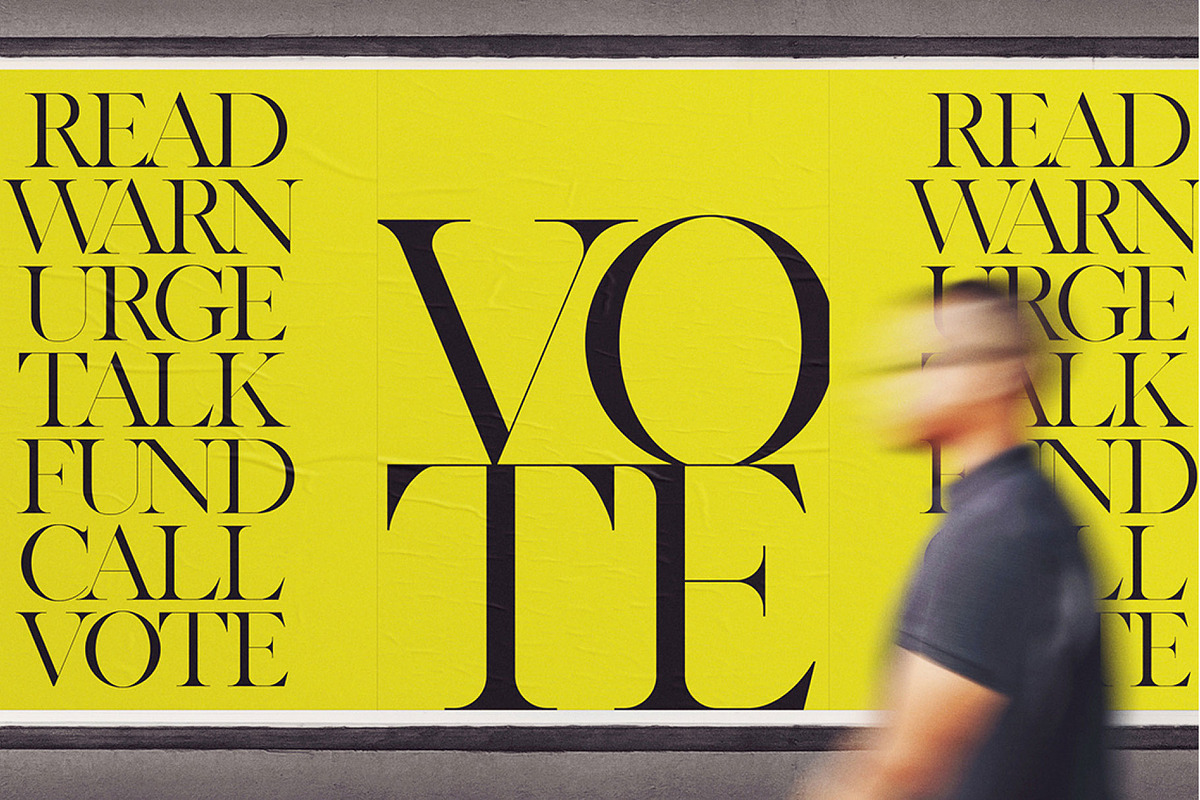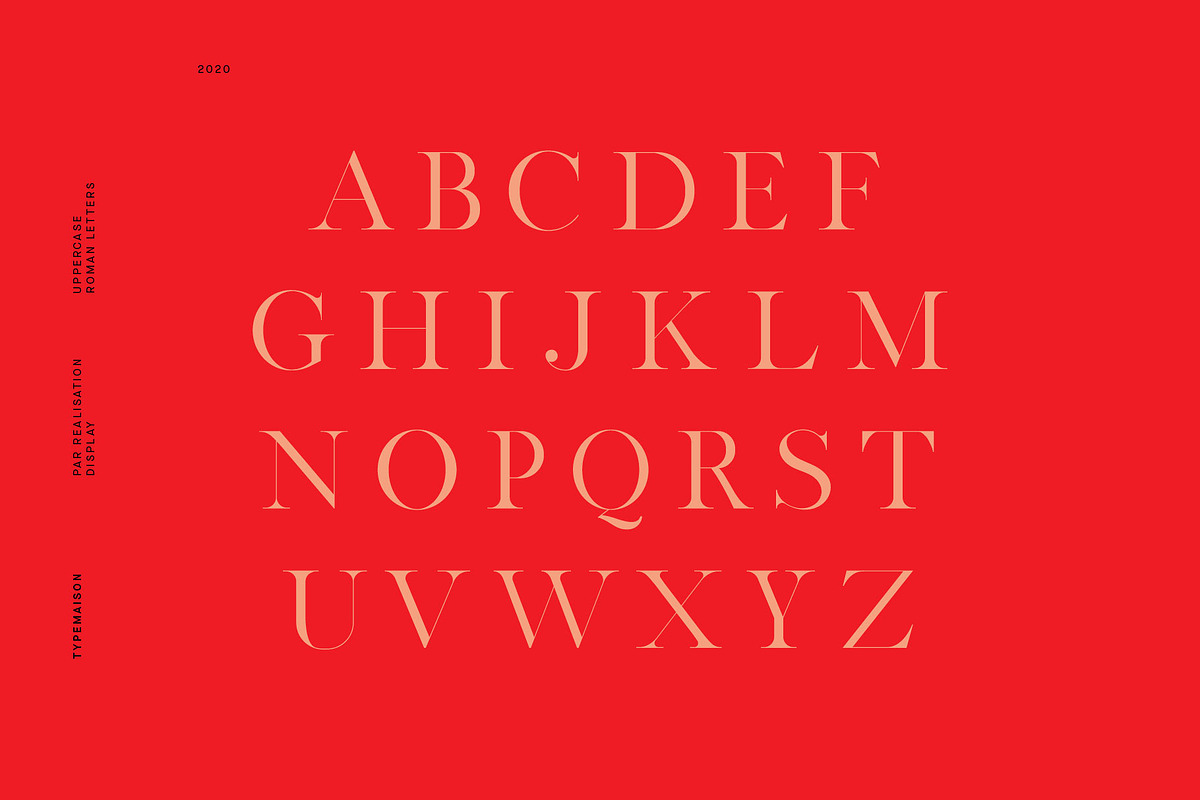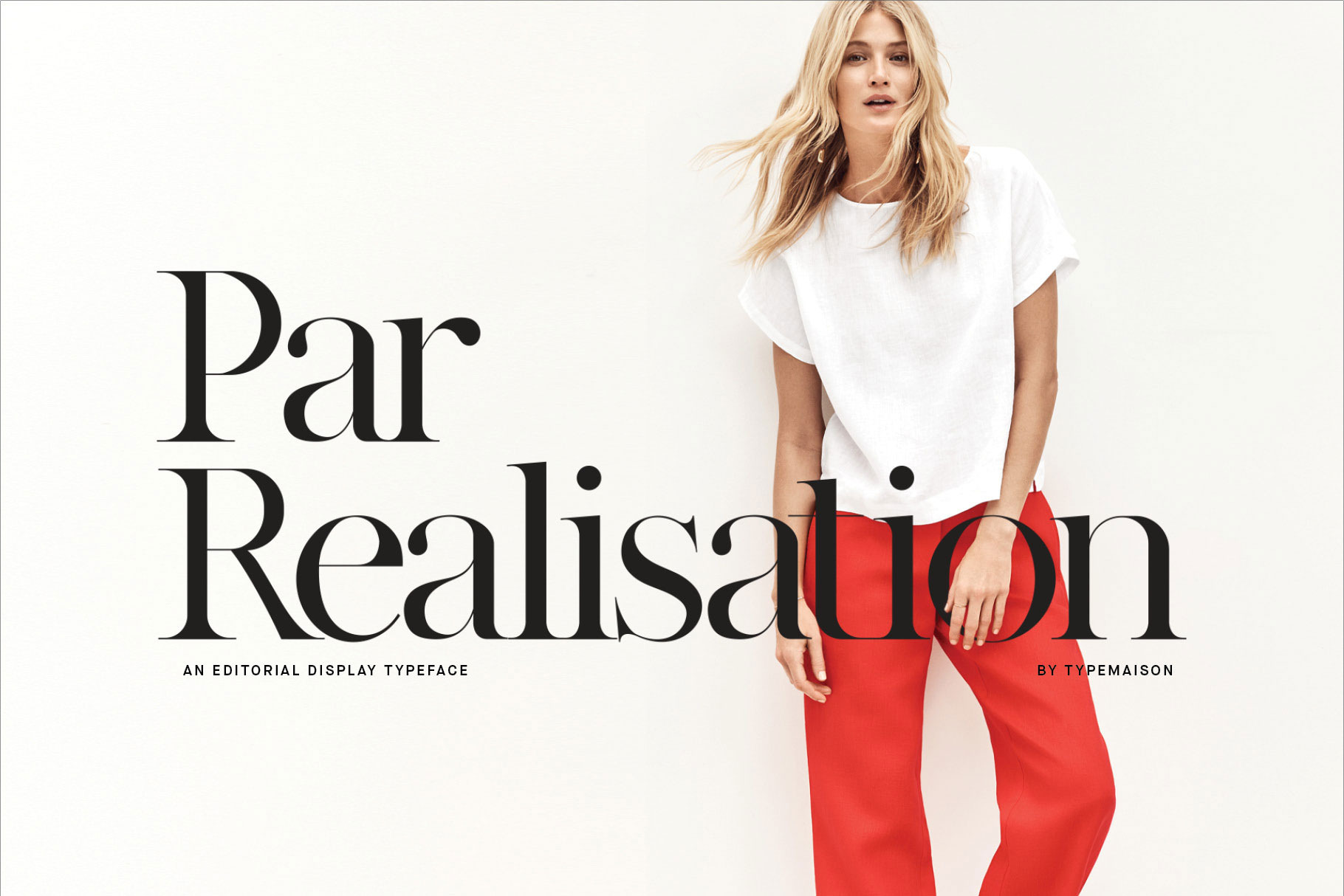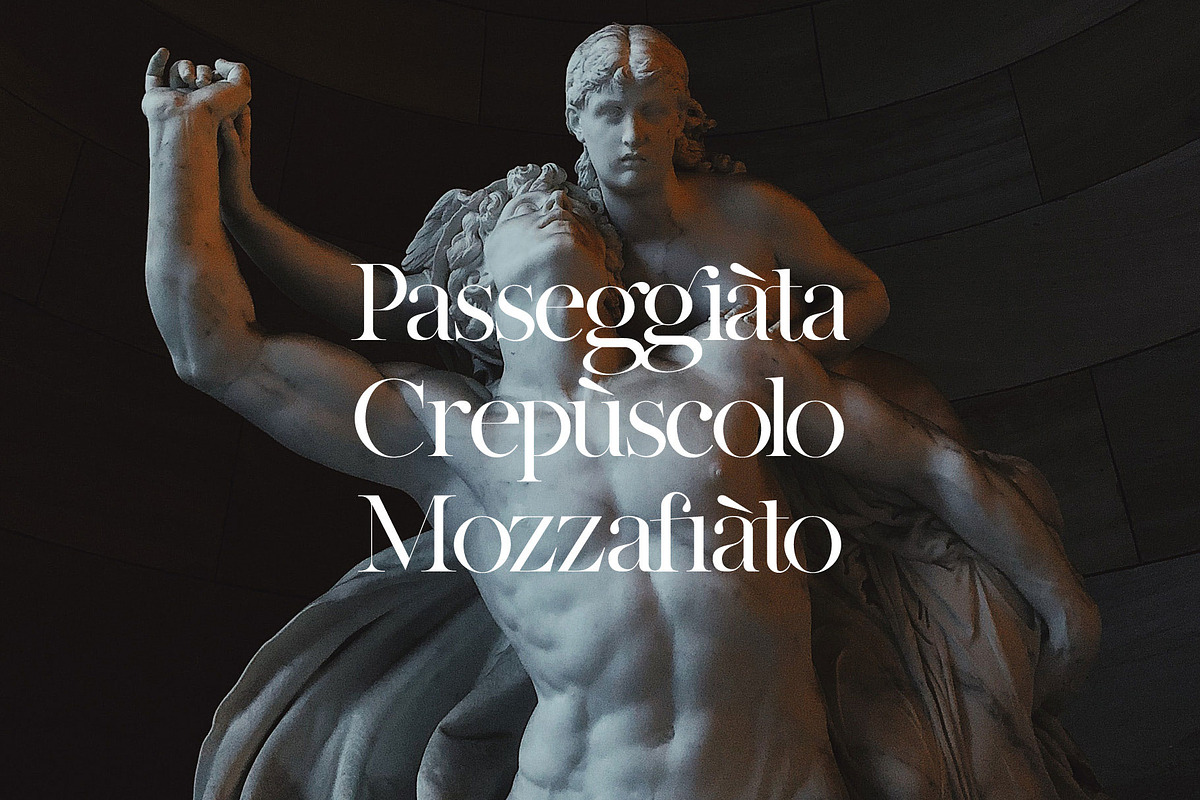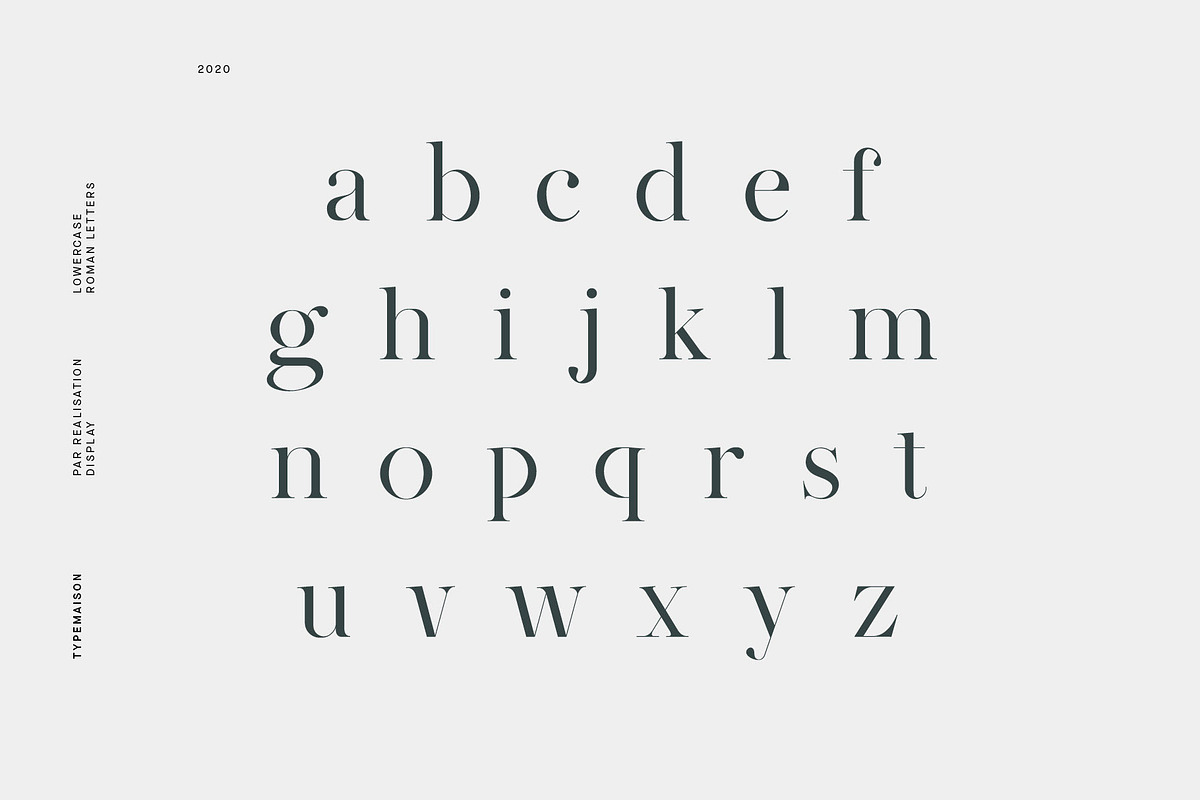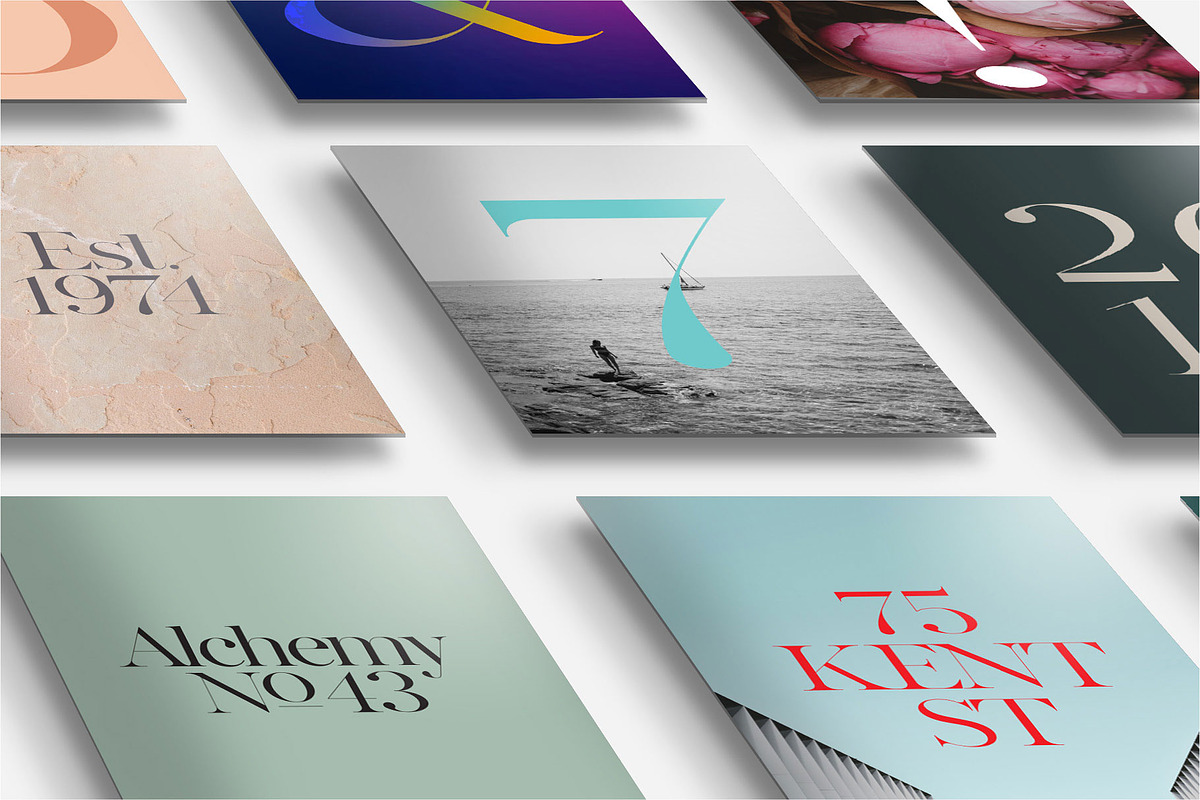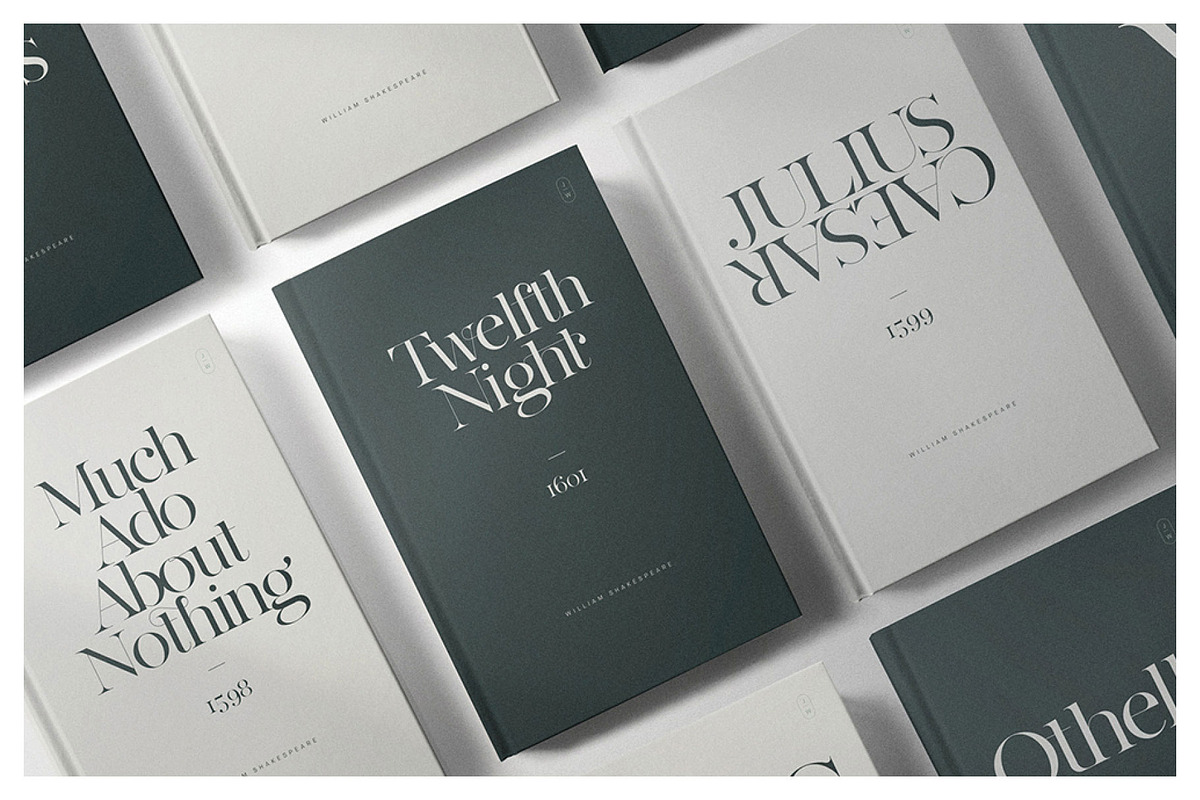
Par Realisation - Serif Typeface
A sophisticated display, serif typeface with acute contrast. Perfectly suited for fashionable and luxurious brands. This has been carefully designed with beautiful details and abundant variety. Choose from alternate numbers and letter to find the bespoke solution for your design. This typeface has a generous amount of discretionary ligatures to experiment with.